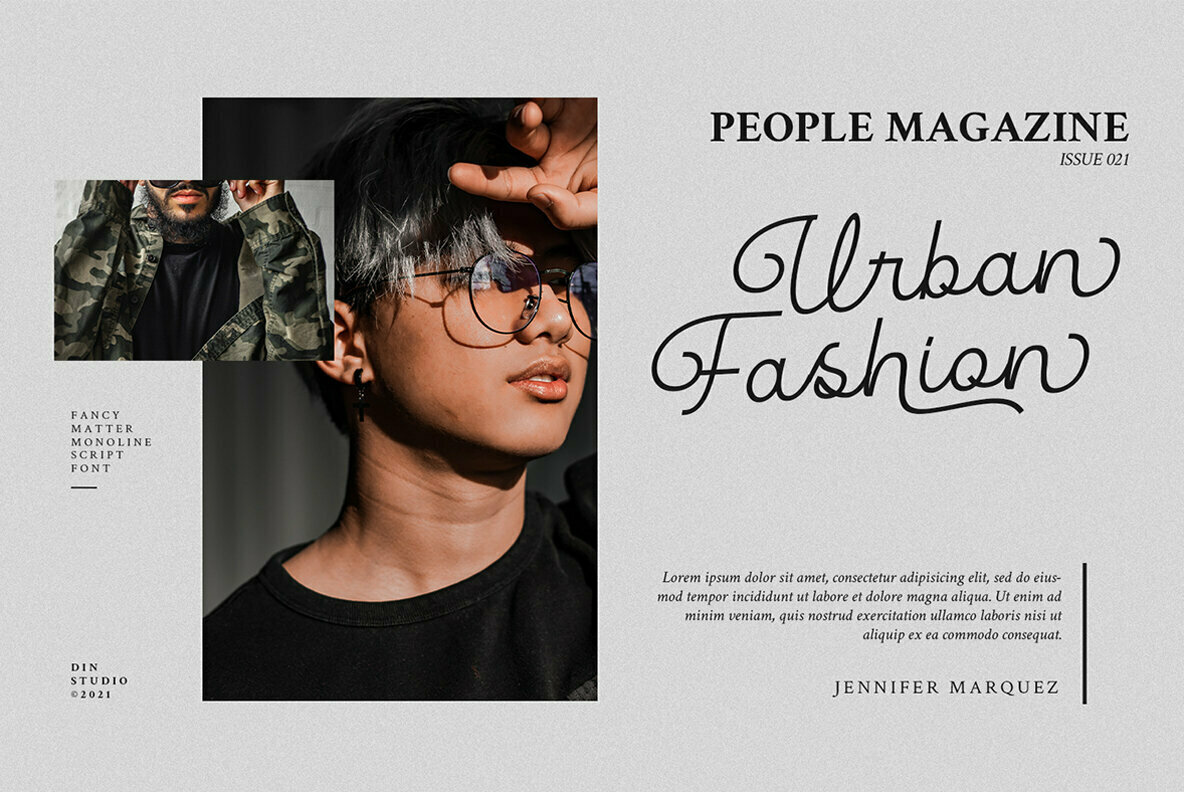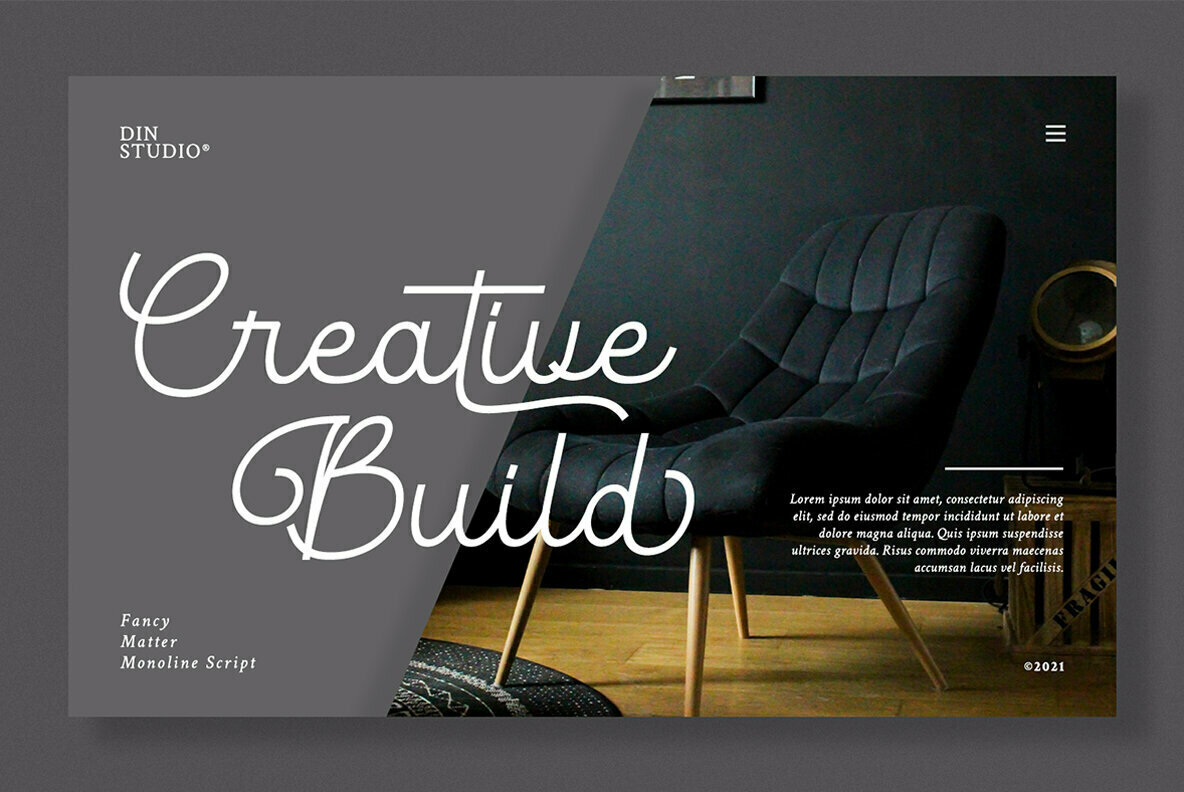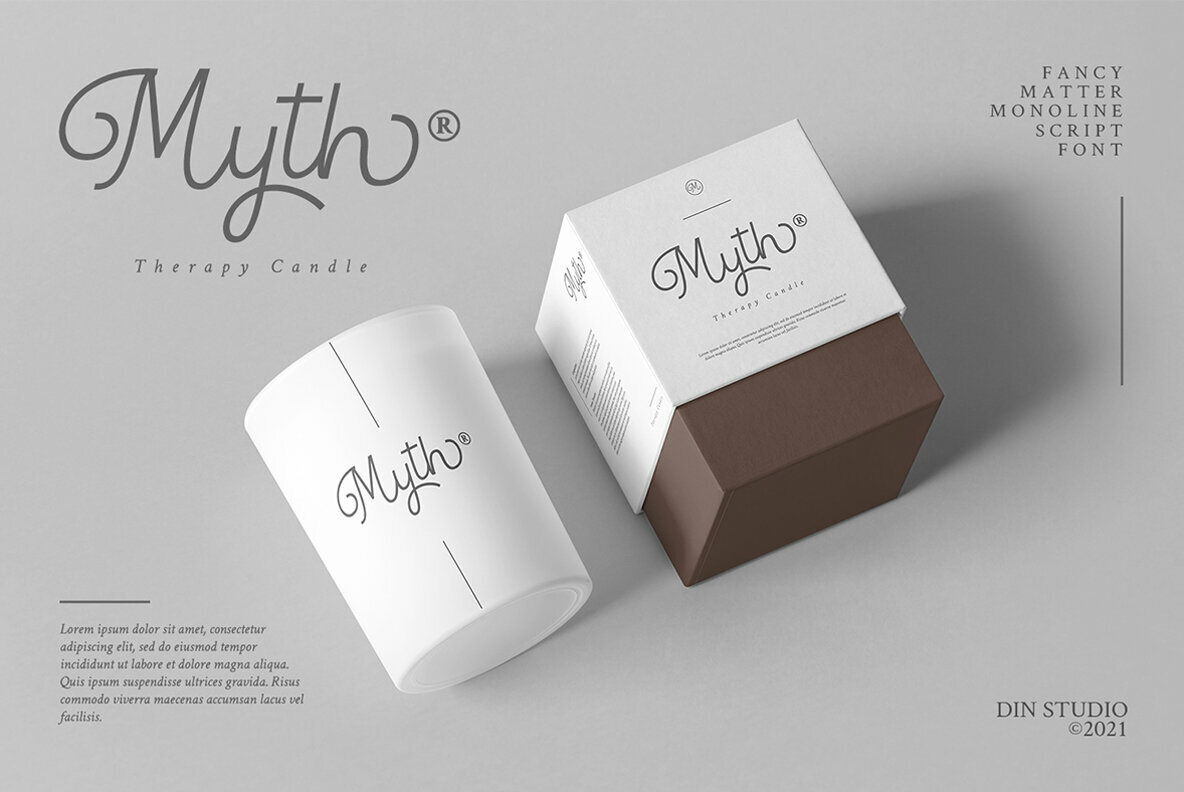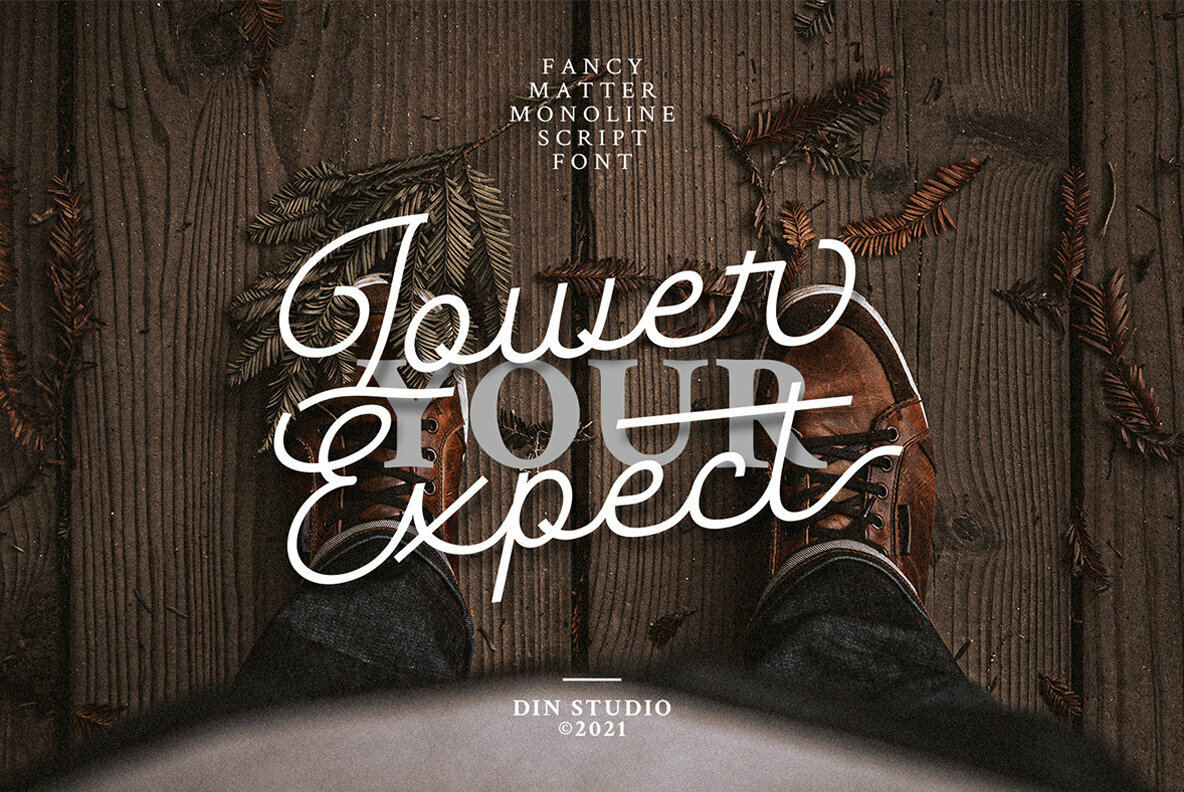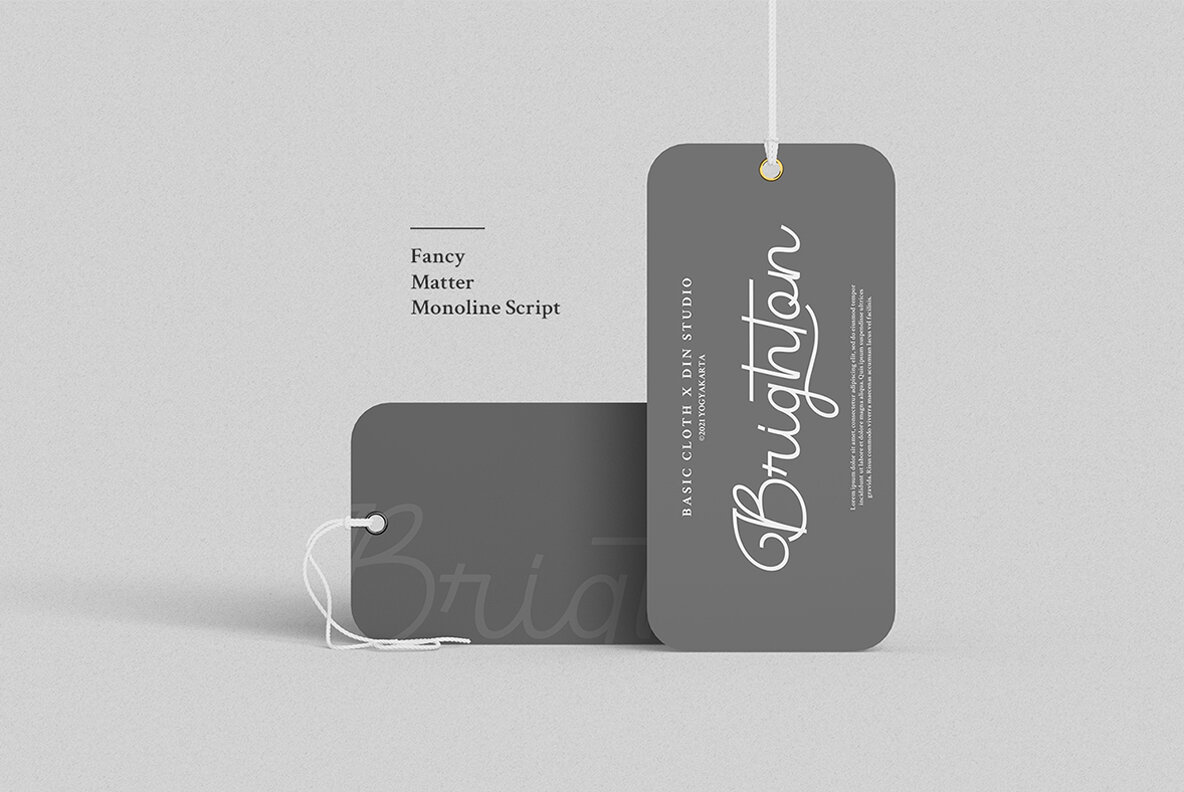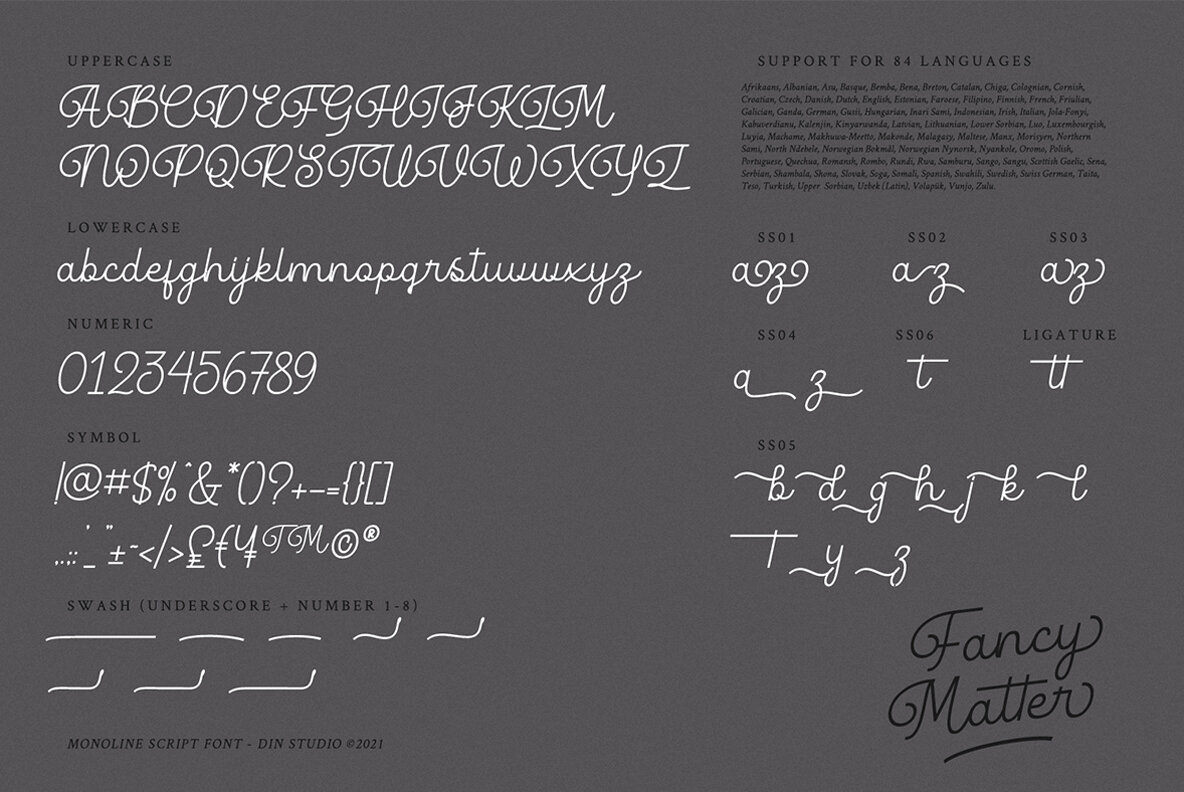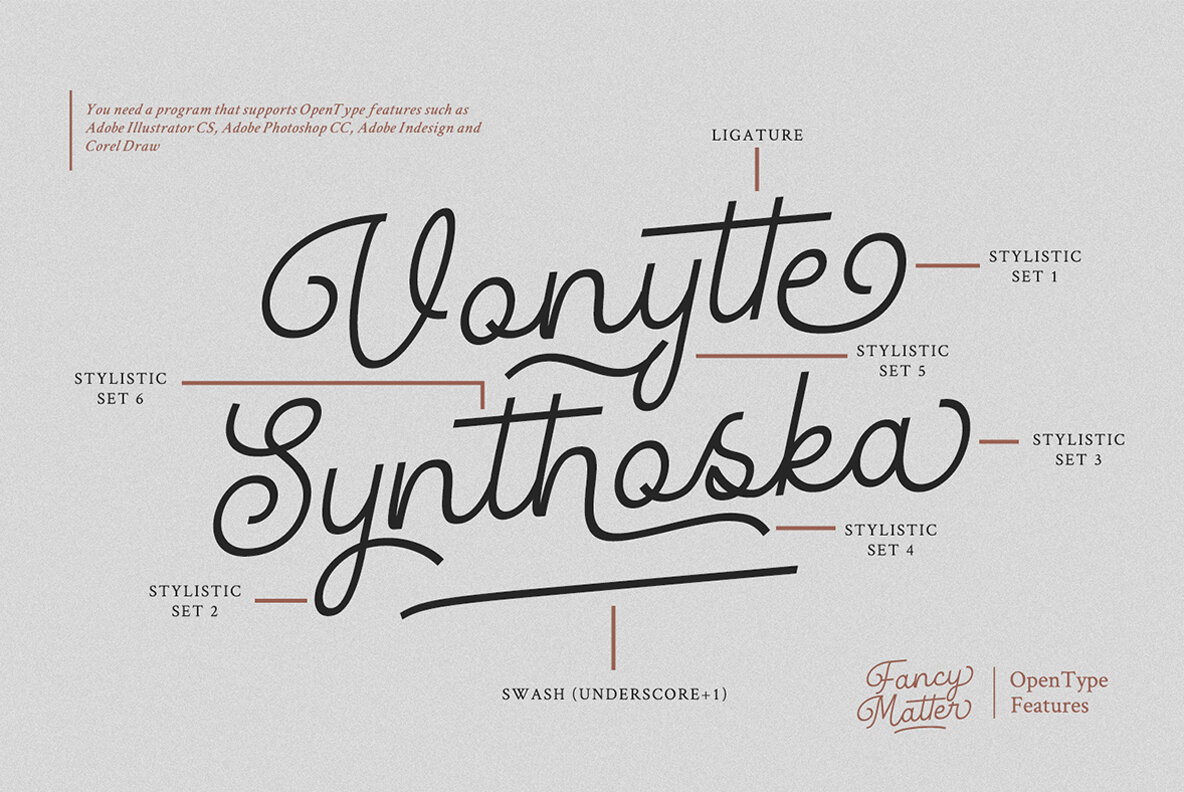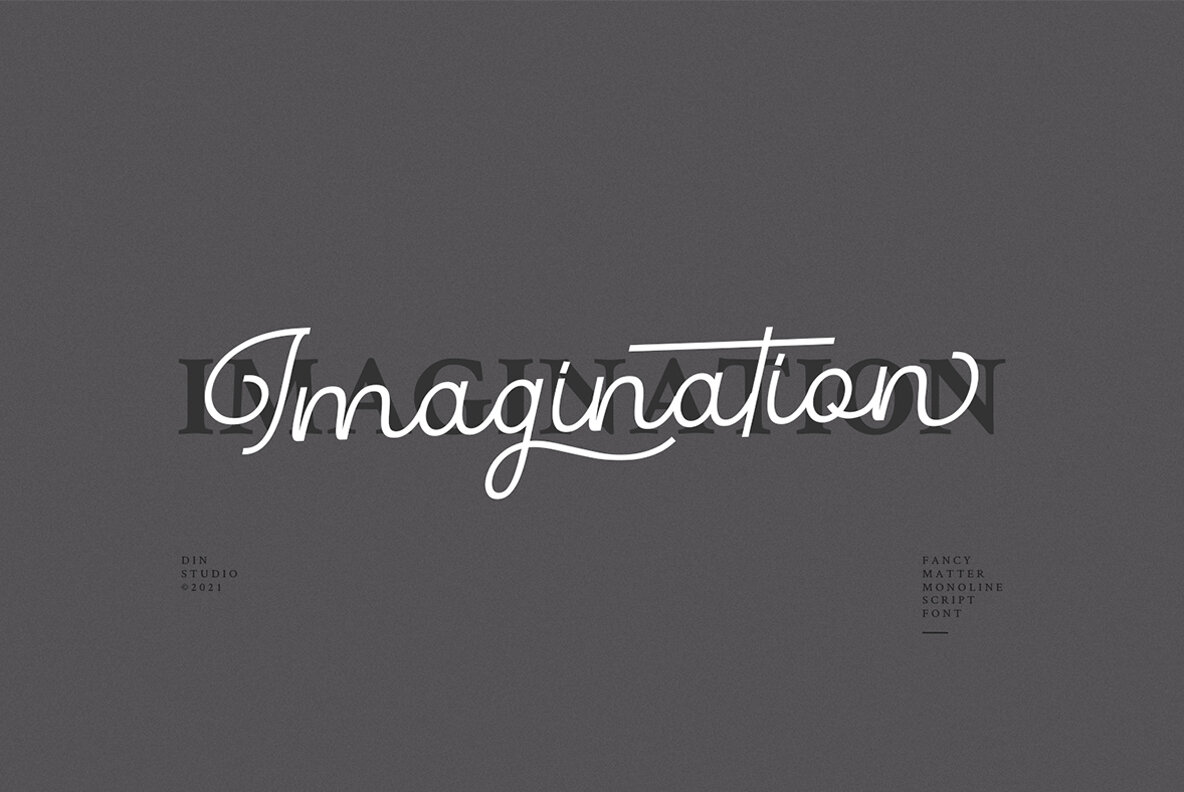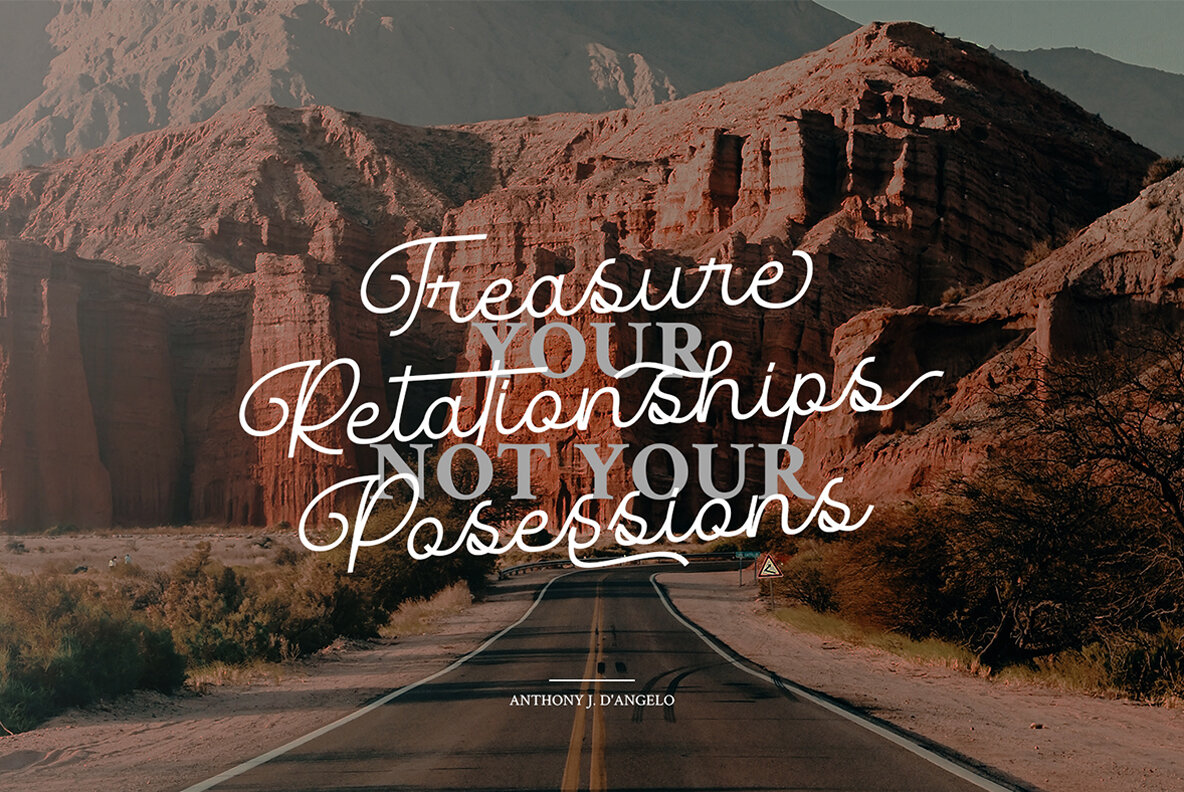
Fancy Matter Font
Fancy Matter
Fancy Matter embodies sophistication and elegance, offering a monoline signature font designed to captivate your audience. Crafted with precision, this font is ideal for enhancing the allure of your headings, logos, advertisements, printed materials, packaging, and online branding. Its graceful design ensures versatility across various platforms and media. Elevate your projects with an international touch, as Fancy Matter's multilingual capabilities enable your brand to resonate with a global audience.Fancy Matter: Elegant Monoline Signature Font